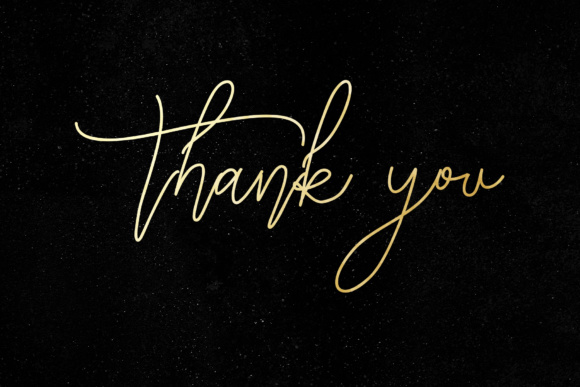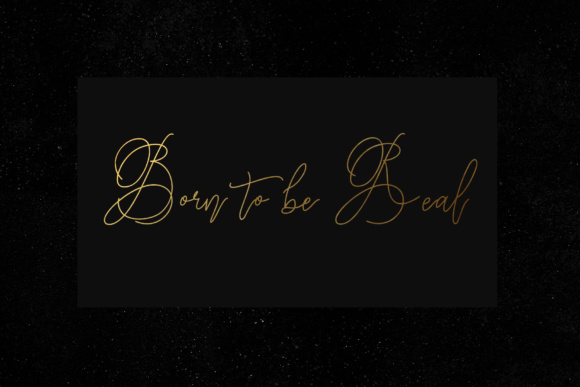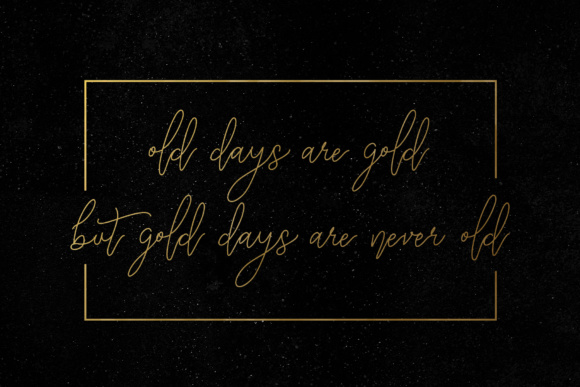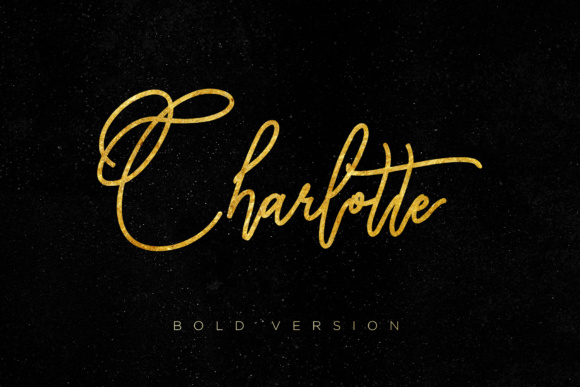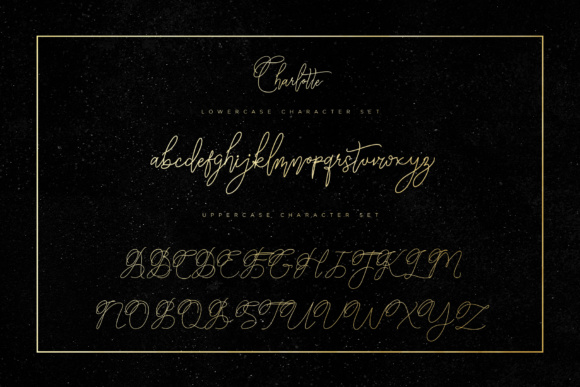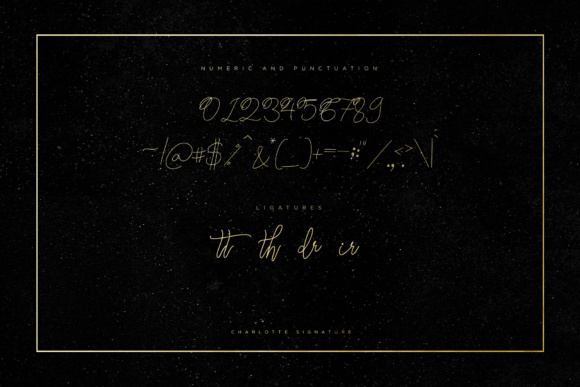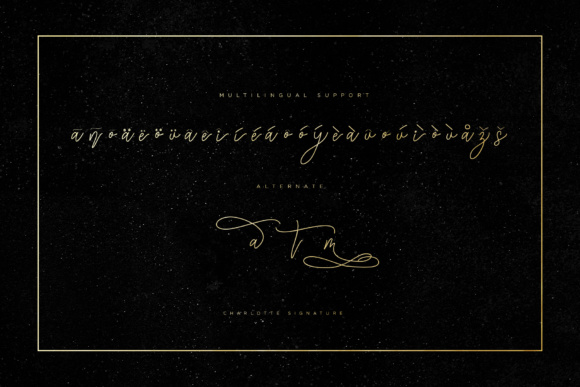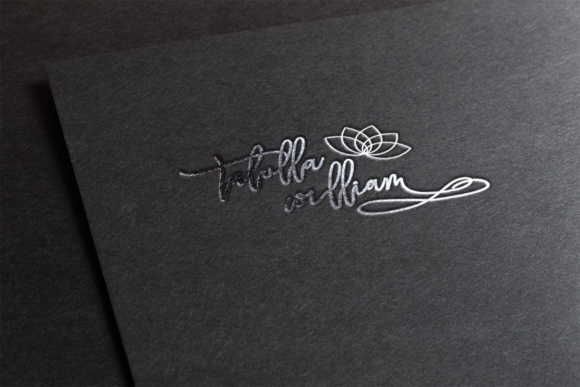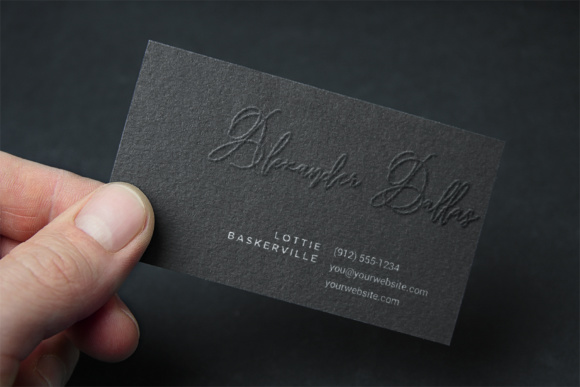
Charlotte Script Font
About Charlotte Script Font
Charlotte Script is an elegant, decorative, feminine font. With Flourish uppercase letters it’s ideal for your wedding monograms and logos. Use this font for wedding invitations, branding, packaging, magazines, florist shops, social media, restaurant menus and much more!